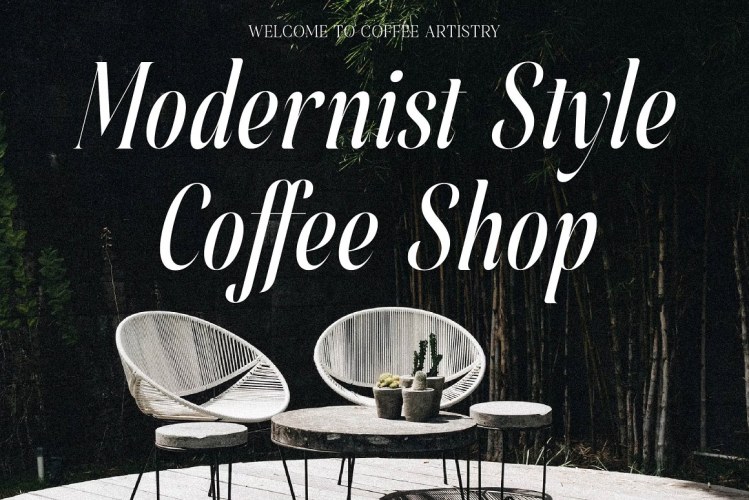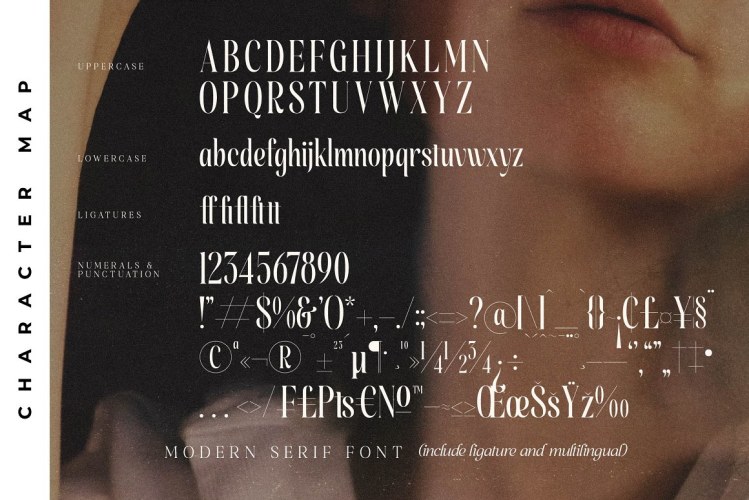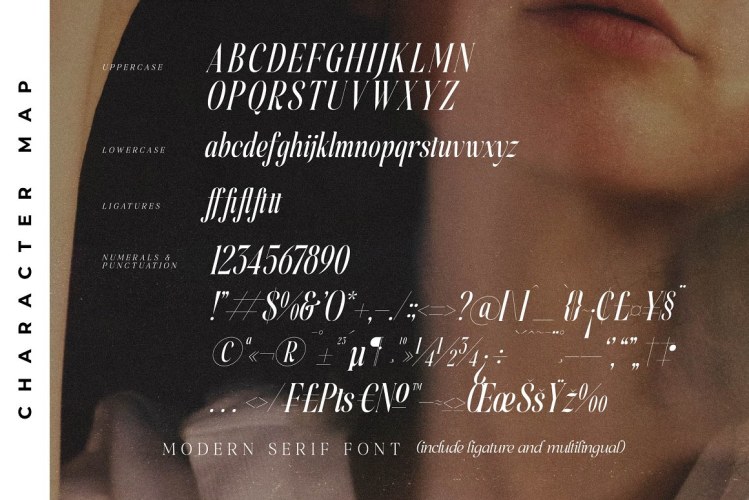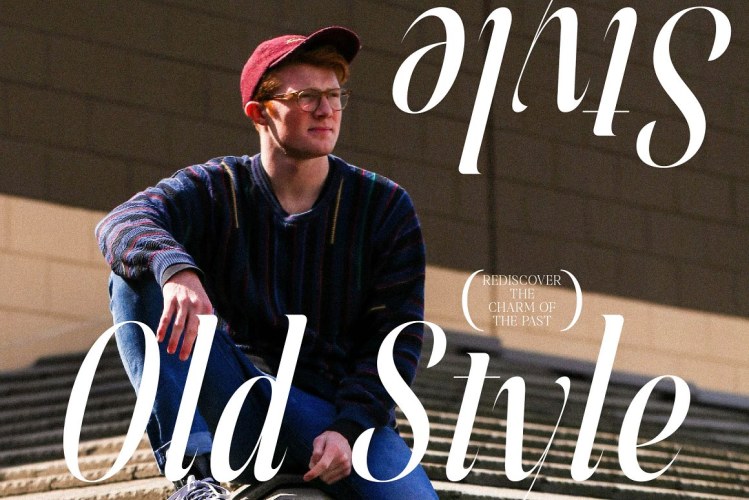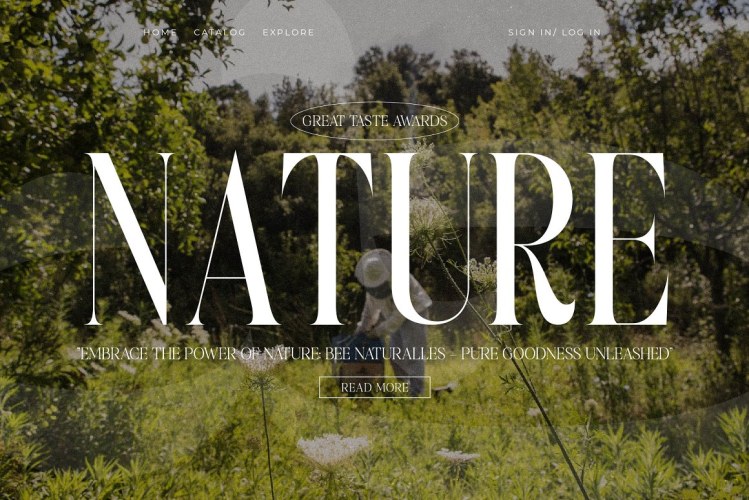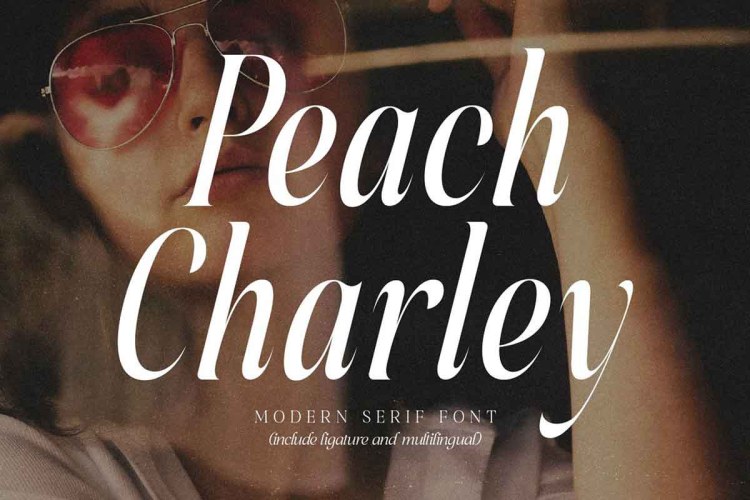
Peach Charley Modern Serif Font
Proudly present Peach Charley Typeface , created by Storytype, A serif modern and classic typeface that has own unique style & modern look. This typeface is perfect for…
Proudly present Peach Charley Typeface , created by Storytype, A serif modern and classic typeface that has own unique style & modern look. This typeface is perfect for an elegant & luxury logo, book or movie title design, fashion brand, magazine, clothes, lettering, quotes, and so much more.
Where Peach Charley Modern Serif Font works best
Peach Charley Modern Serif Font gives long-form text a classic, trustworthy rhythm — ideal for magazine spreads, annual reports and book interiors.
Pair Peach Charley Modern Serif Font with generous letter-spacing for wordmarks in fashion, hospitality, wine and jewellery branding.
Use Peach Charley Modern Serif Font for slide titles in Keynote, PowerPoint or Google Slides to add authority without looking dated.
What is Peach Charley Modern Serif Font good for?
Peach Charley Modern Serif Font is a Serif Fonts typeface tagged Branding, Classic, Editorial, Elegant. It works well for headlines, logos, posters, social media graphics and branding projects that need a distinctive serif fonts look.